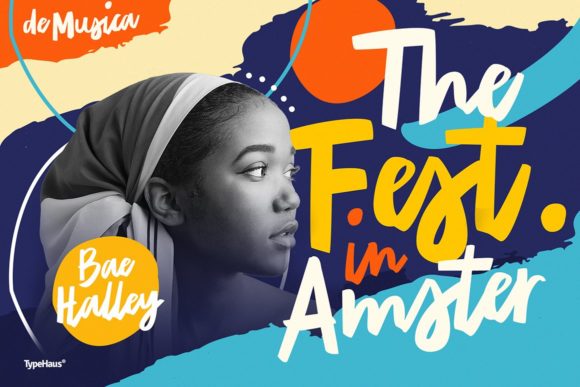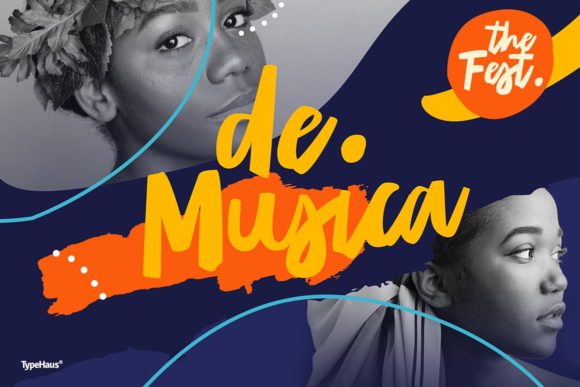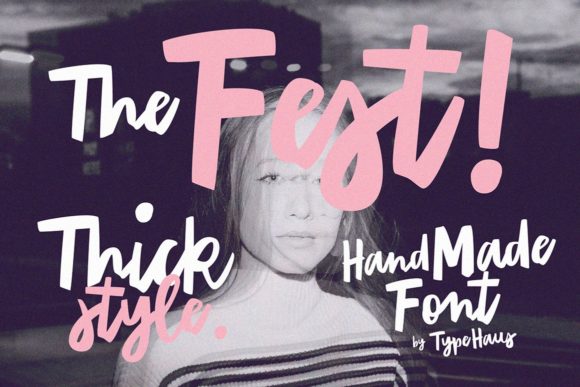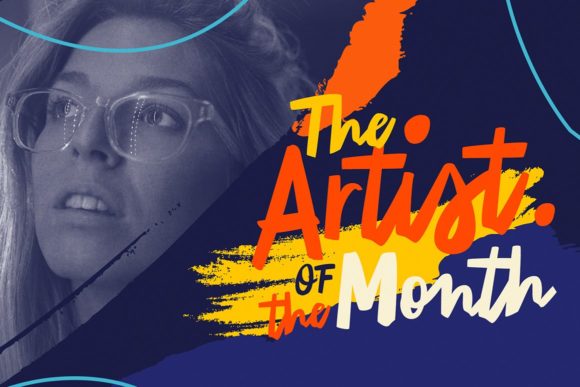
The Fest Font
About The Fest Font
The Fest is a bold and artsy script font that will take any design project to the next level. Get inspired by its playful and dynamic charm!